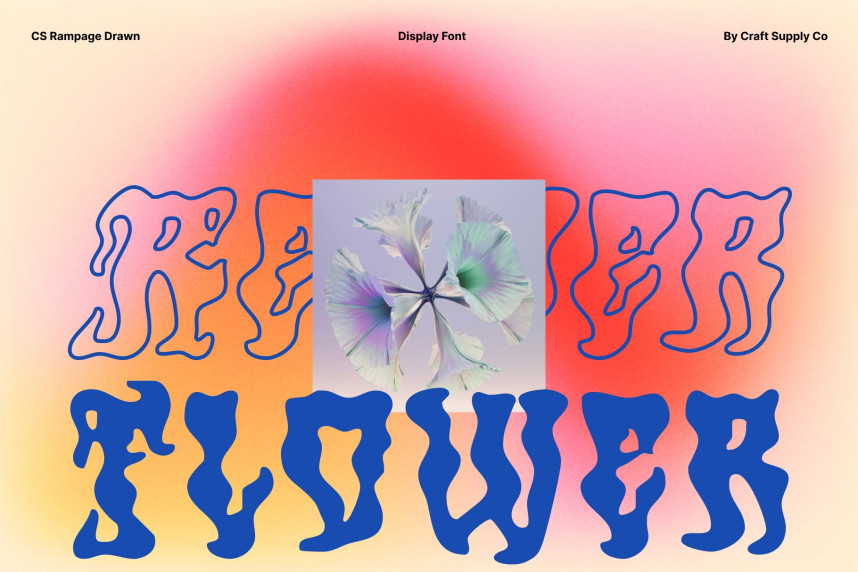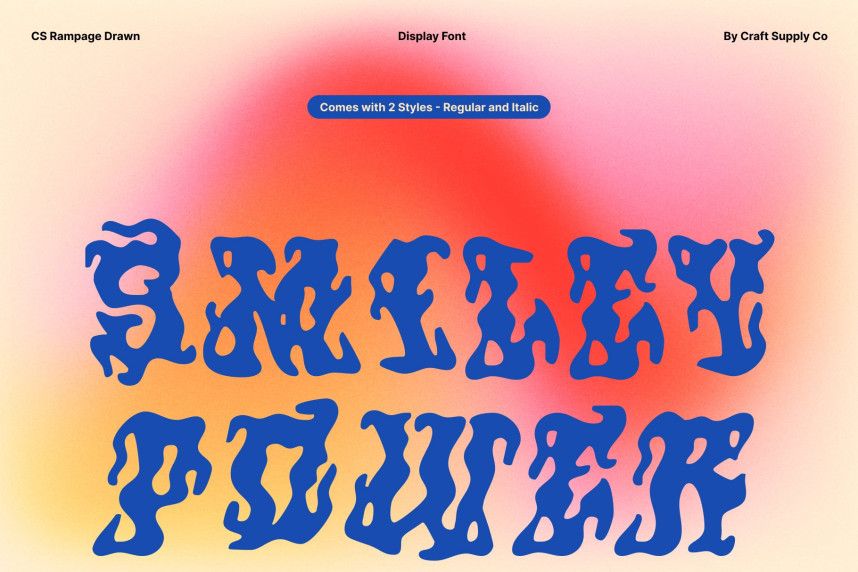
CS Rampage Drawn Font
CS Rampage Drawn Font – Psychedelic Display Font Full of Energy Dynamic Funky Lines and Experimental Curves. This is a psychedelic display font designed to explode with movement, rhythm, and imagination. Built with dynamic funky lines and boldly curved, experimental shapes, this typeface instantly commands attention. Its unconventional forms create a sense of motion and visual excitement, making every word feel alive and energetic.